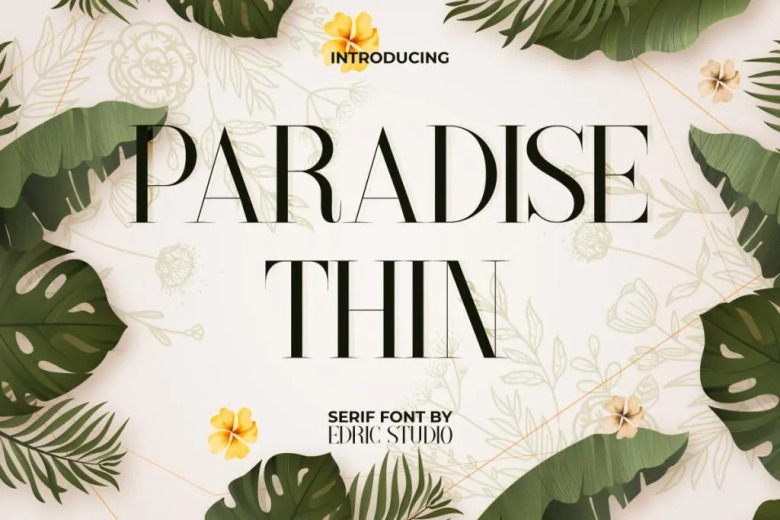
Paradise Thin Font
Paradise Thin – a modern serif font with sleek style, by the Edric Studio. For industry’s in fashion, craft, homeware and many others given its mixed amazing shape in different dimensions, this typeface is a complete departure from the past and feels extremely modern.
This typeface Paradise Thin Font has two styles: Regular and Italic which comes with the full set Uppercase basic characters, Lowercase basic characters and Number, Large range of Punctuation and Symbol. It has a stunning characters set which is perfectly managed with well- spaced and kerning.
Paradise Thin Serif Font